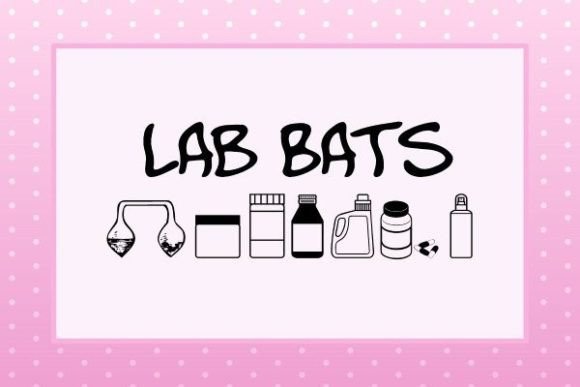
ABOUT LAB BATS FONT
“Lab Bats” is a fascinating collection of icons that draws inspiration from laboratory themes. Created by Apostrophic Labs, this font offers a unique and decorative appeal, making it an ideal choice for those seeking to add a touch of enhancement to their work.
With “Lab Bats,” you have access to a variety of laboratory-inspired icons that can be used to enhance your designs. Whether you’re working on scientific presentations, educational materials, or any project related to the laboratory or scientific field, this font provides a set of visually appealing icons that can add a distinctive touch to your work.
Embrace the decorative charm of “Lab Bats” and explore the possibilities it offers. Incorporate these icons into your designs to create a captivating visual language that captures the essence of the laboratory. Let your creativity shine and enjoy the unique appeal of “Lab Bats” in your work!